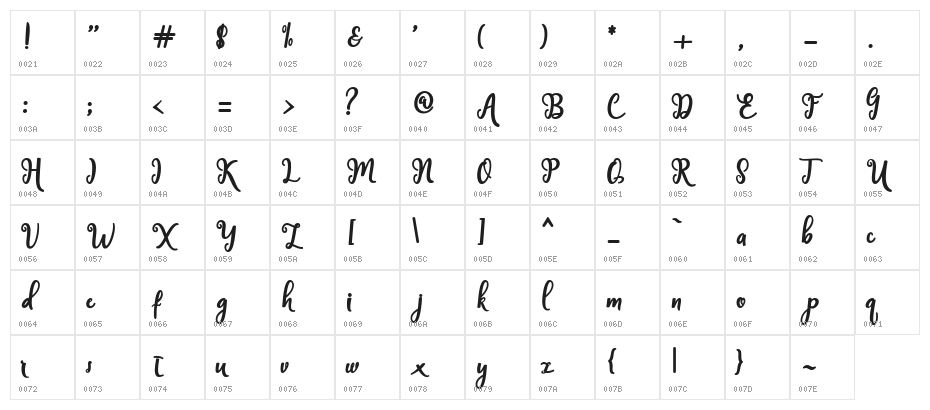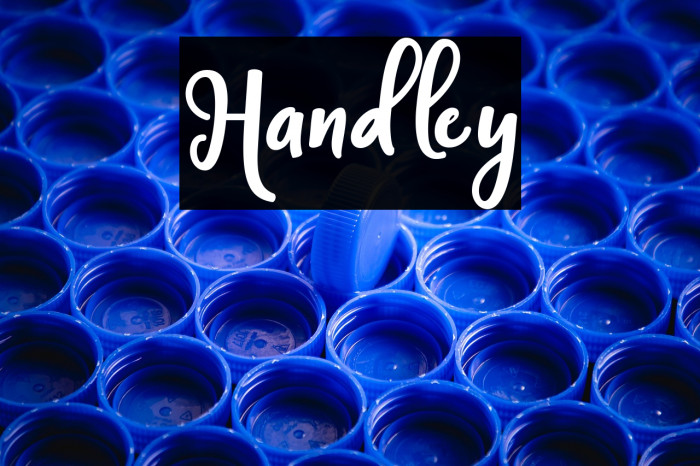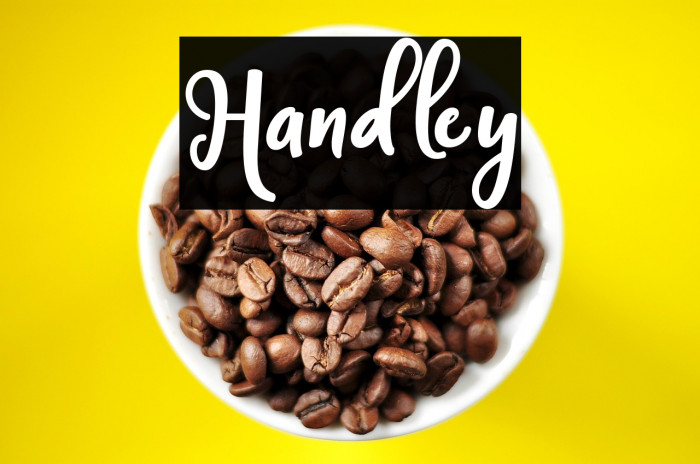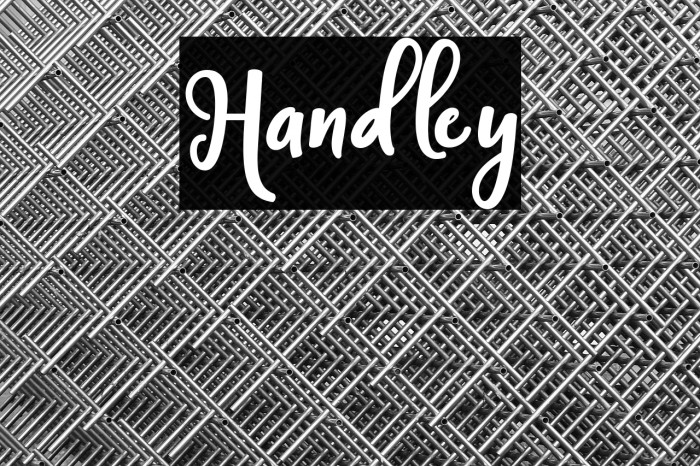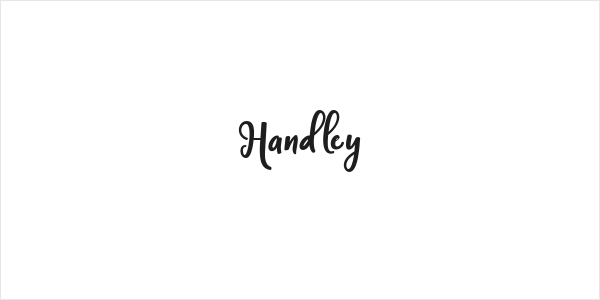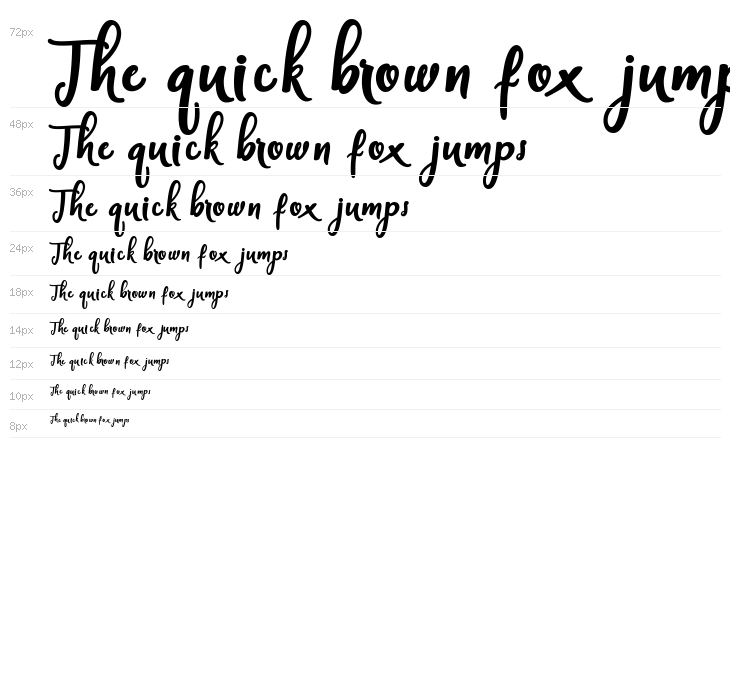
Handley Font
Handley Description
This font features a playful and whimsical script style with a handwritten appearance. The letters are characterized by their flowing, cursive forms and varying stroke widths, giving them a dynamic and lively feel. The uppercase letters are bold and prominent, while the lowercase letters maintain a consistent style with slightly exaggerated loops and curves. The numerals and special characters complement the overall design, maintaining the same playful aesthetic. This font's unique style makes it suitable for creative and informal projects, adding a touch of personality and flair.
| Proposed Projects | Ideal for greeting cards, invitations, logos, and branding materials that require a personal touch. |